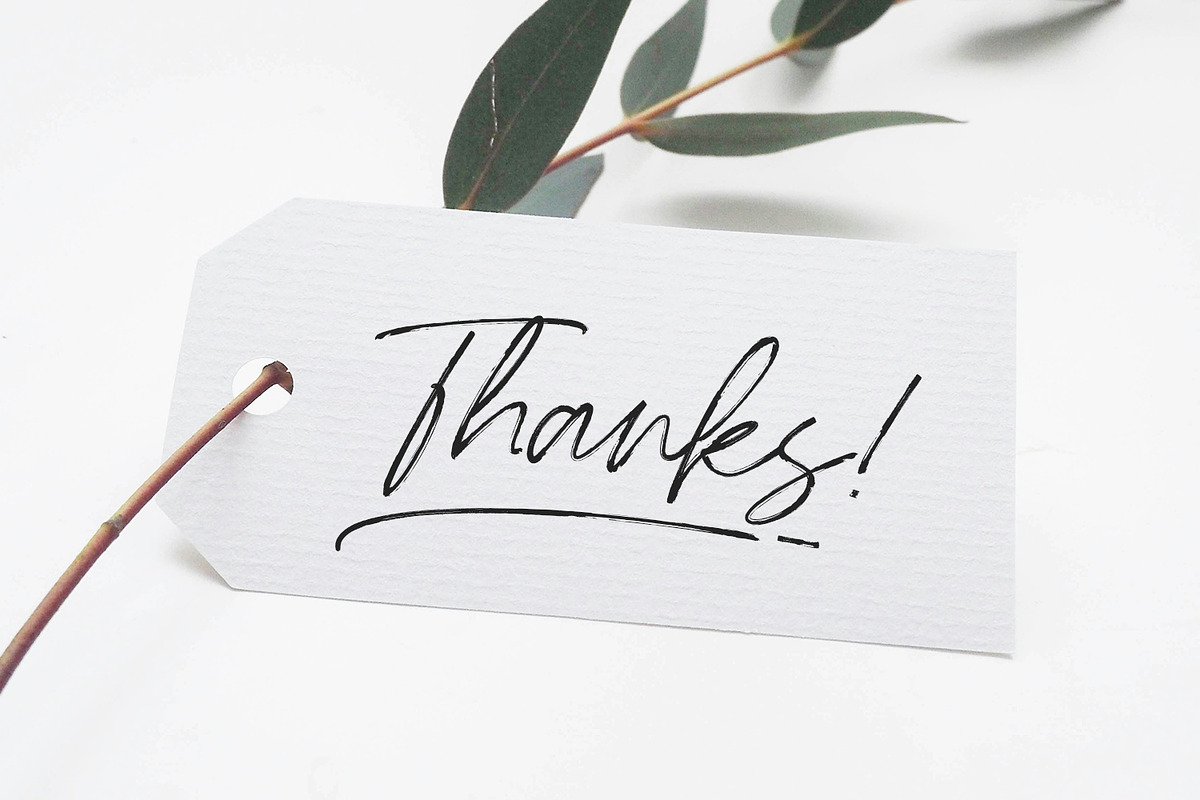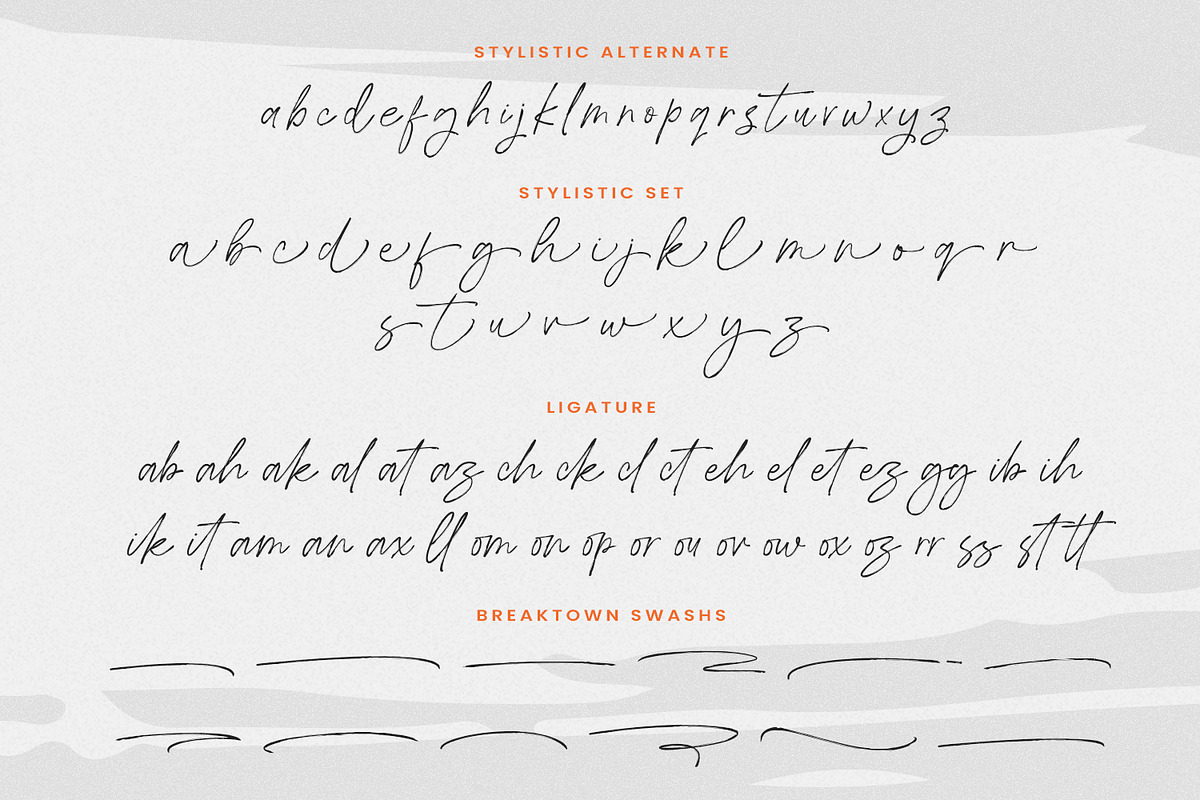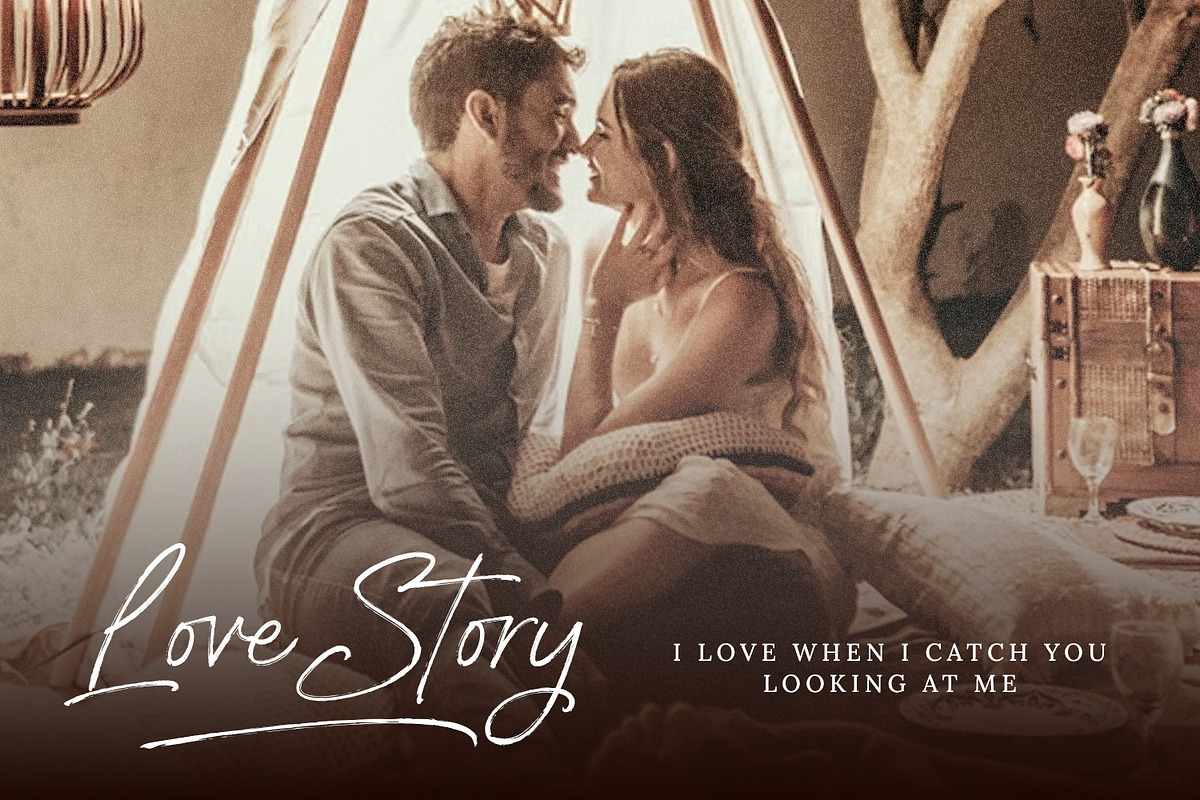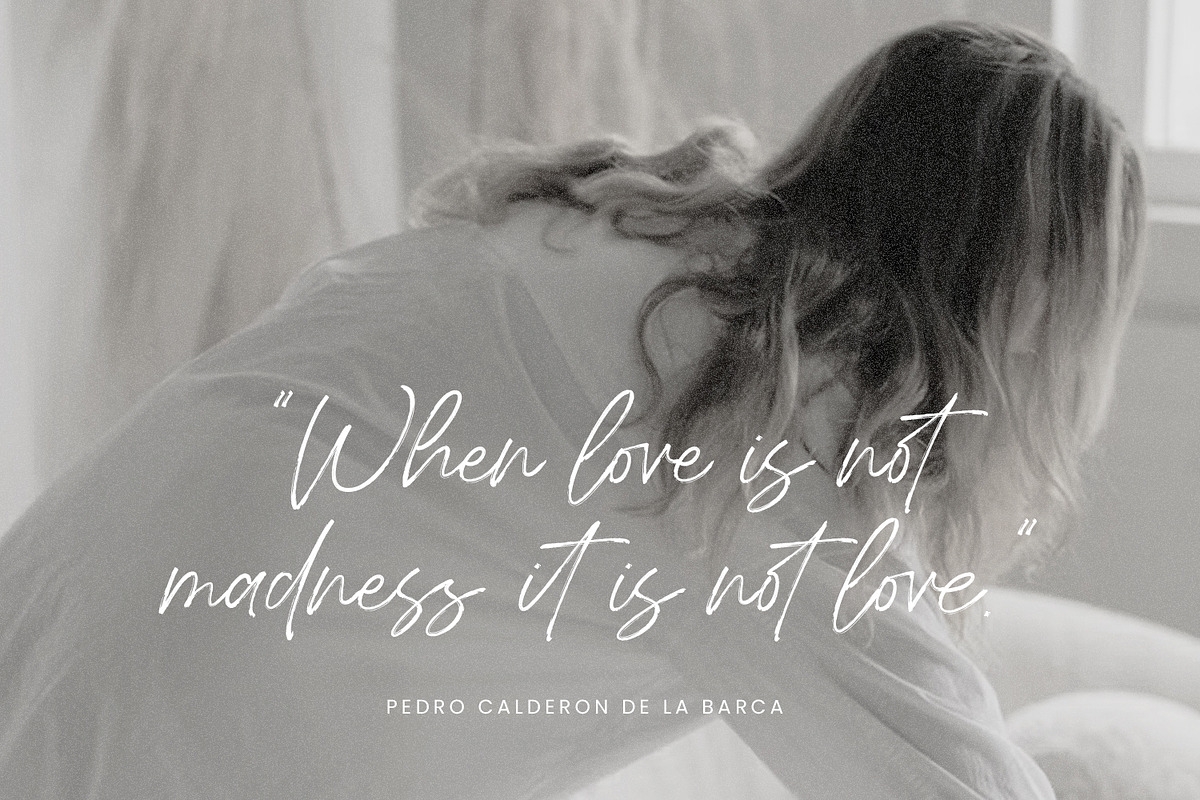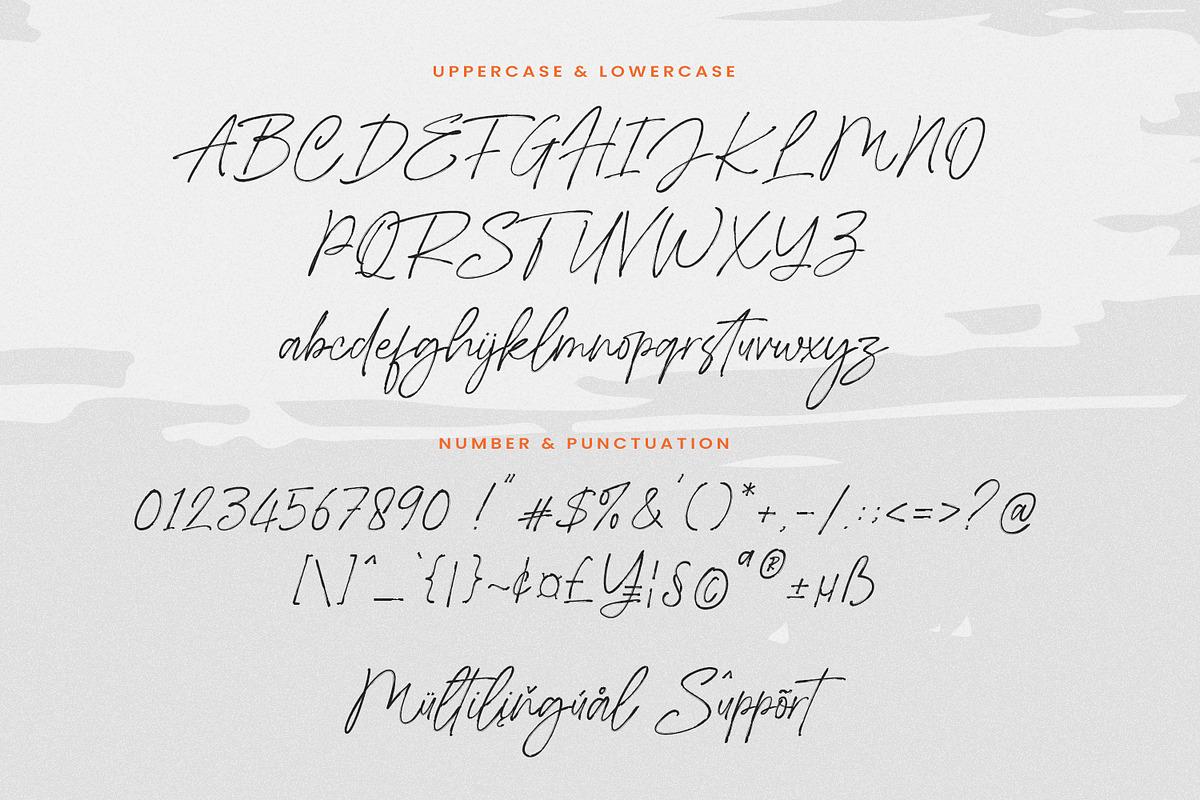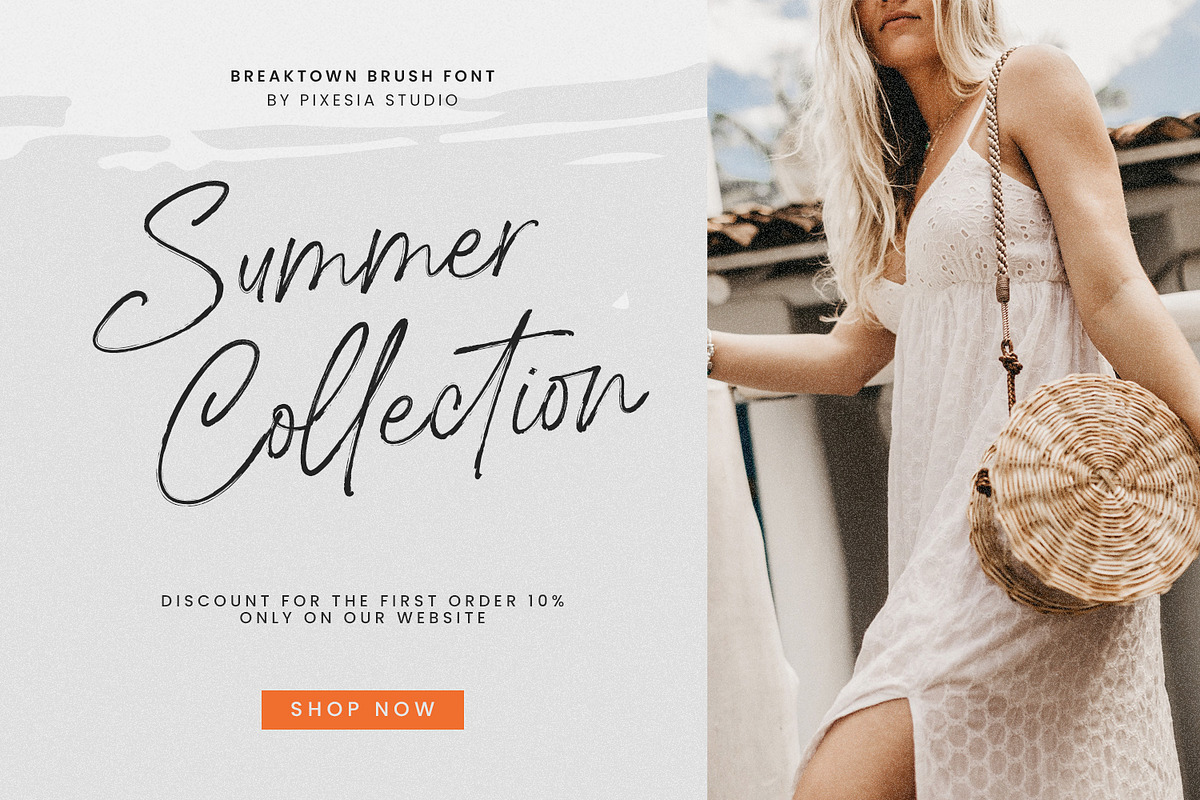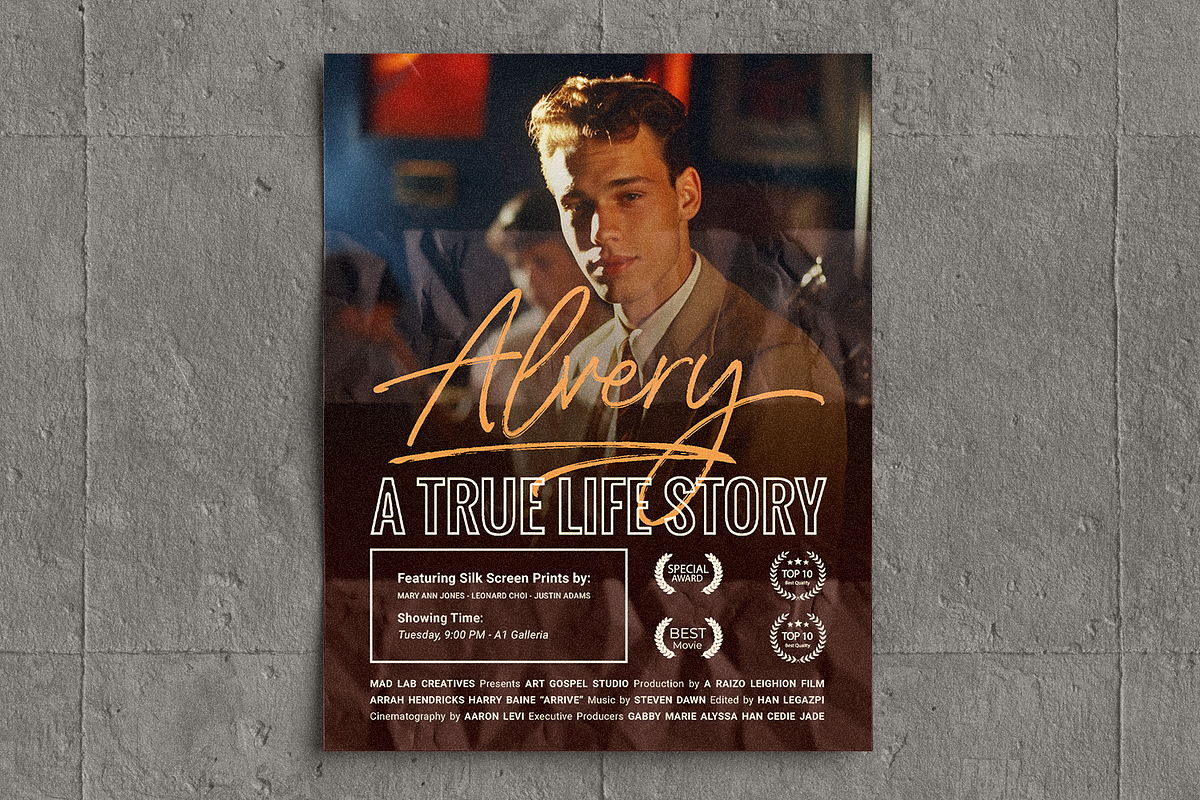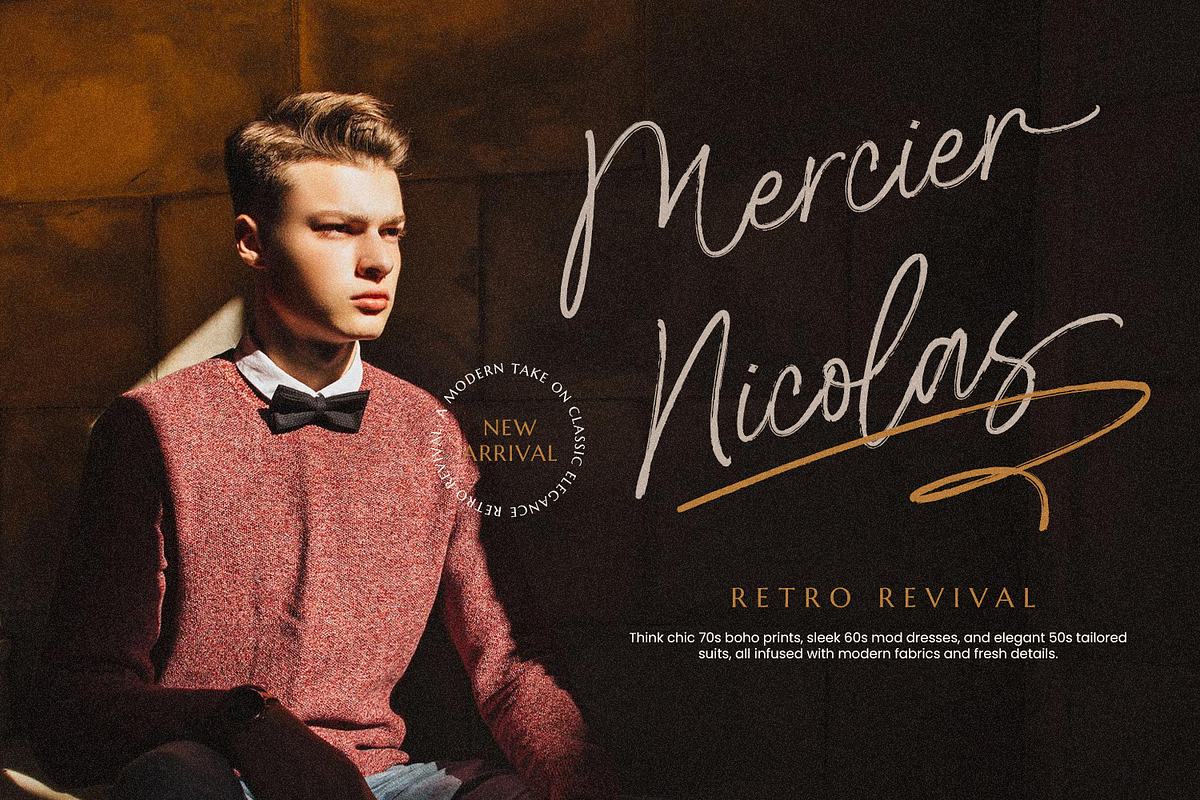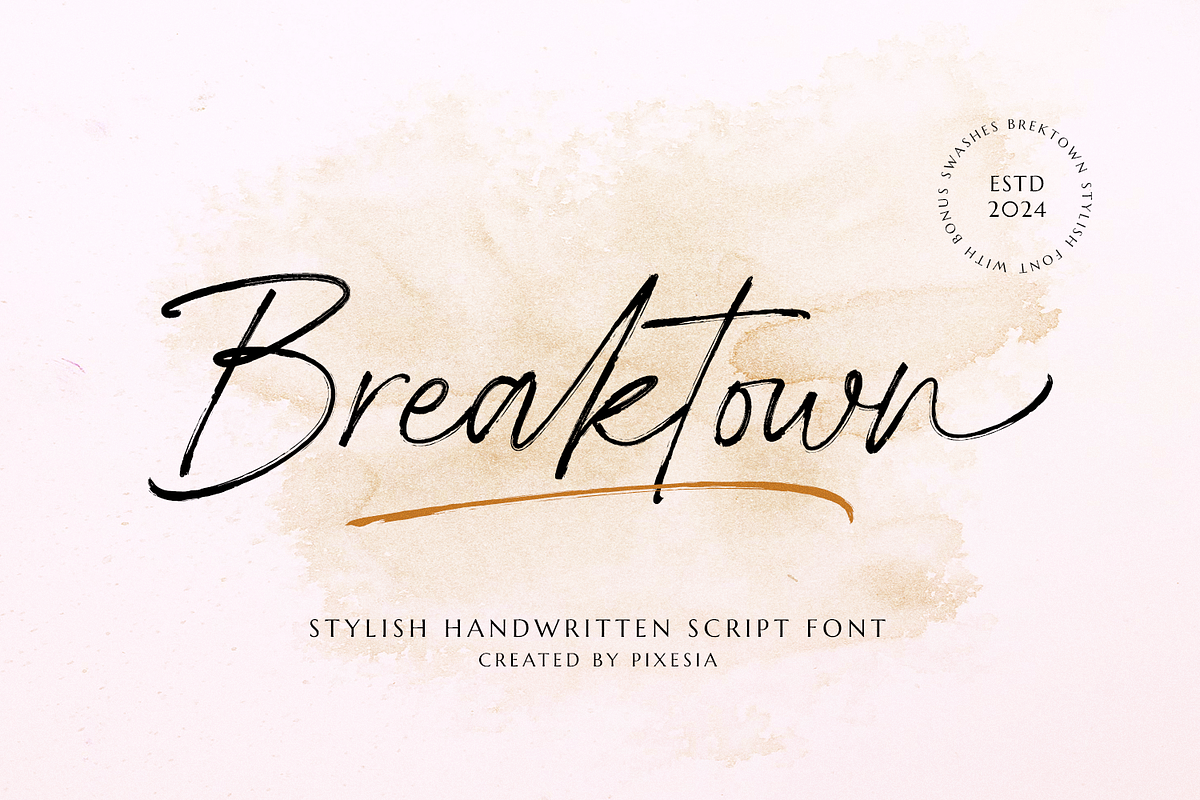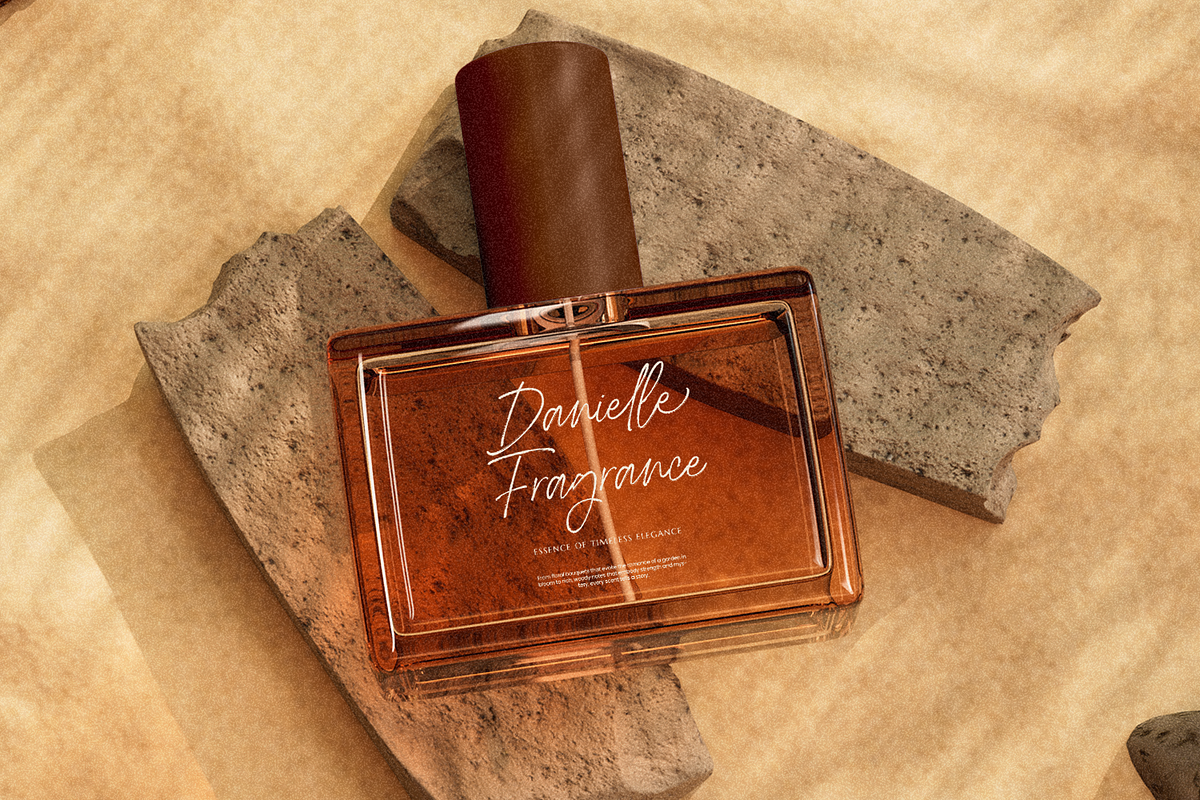
Breaktown - Stylish Brush Font
Introducing Breaktown - Stylish Brush Font
Breaktown is a modern beautiful brush marker signature font. With its distinctive touch, it adds a personal and exclusive feel to every design it graces. Its smooth, delicate lines exude elegance, while its bold strokes provide unmatched visual power.
Breaktown is perfectly suited for branding, logotypes, tshirt design, quotes, labels, social media posts, advertisements, product packaging, product designs, label, poster, photography, watermark, invitation, stationery and any projects that demand attention and style or need a handwritten touch.
- Multilingual Support including Afrikaans, Albanian, Basque, Catalan, Danish, Dutch, English, Estonian, Faroese, Filipino, Finnish, French, Galician, German, Icelandic, Indonesian, Irish, Italian, Malay, Norwegian Bokmål, Portuguese, Spanish, Swahili, Swedish, Zulu